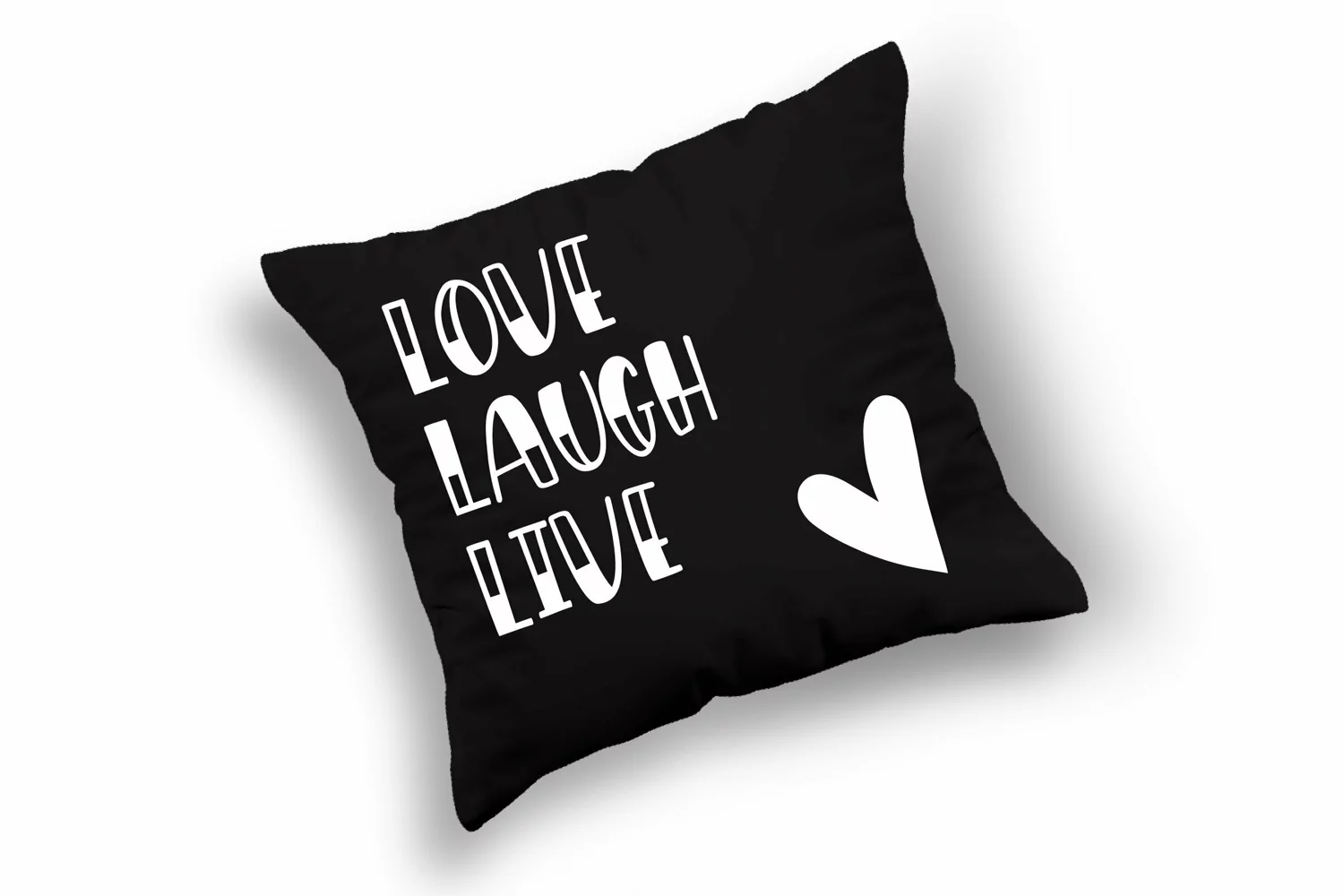
Chessboard is a playful handwritten font, perfect for all your craft projects!
The uppercase and lowercase when types alternatively give a fun chess-like look which is so fun to play with.